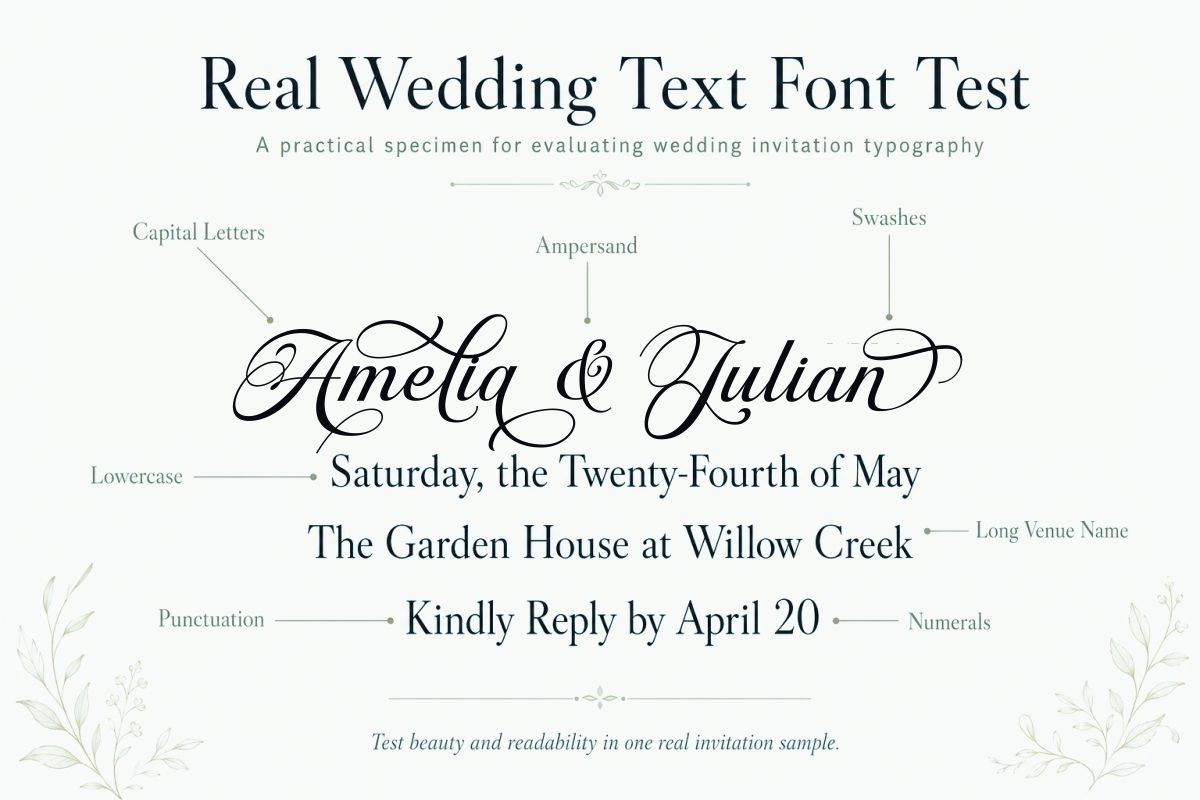
Wedding Invitation Fonts for Elegant, Romantic, and Modern Designs
Wedding invitation fonts do more than make an invitation look beautiful.
They introduce the mood of your celebration before guests see the venue, flowers, outfits, or table setting. A delicate script can suggest an intimate garden wedding. A high-contrast serif can feel formal and editorial. A clean sans serif can make the same information look modern and relaxed.
However, choosing a wedding font is not simply about finding the prettiest typeface.
Your invitation still has a job to do.
It needs to communicate names, dates, locations, dress codes, RSVP details, and other practical information. Every line must remain easy to understand. Even when it is printed at a small size.
I like to think of wedding invitation typography as a small visual system. You need one font to express personality and another to keep the information clear.
This guide will help you choose wedding invitation fonts based on style, readability, pairing, printing, licensing, and how they work across a complete wedding stationery suite.
Why Wedding Invitation Fonts Matter
Your font choice influences how guests interpret the event.
Imagine the same invitation wording presented in three different ways.
A formal calligraphy font with a traditional serif may suggest a black-tie ballroom wedding. A relaxed handwritten font with an organic serif may feel more suitable for an outdoor garden celebration. A geometric sans serif with wide spacing can suggest a contemporary city wedding.
The information has not changed.
The emotional message has.
Good wedding typography usually supports four things:
It introduces the atmosphere
Typography gives guests an early clue about the celebration.
It can communicate elegance, romance, simplicity, playfulness, tradition, or informality before anyone reads the full invitation.
It creates visual hierarchy
Not every line should receive the same level of attention.
The couple’s names may become the main focal point. The wedding date should be easy to locate. Supporting information should remain quieter but still readable.
Font choice, size, weight, spacing, and positioning help separate these levels.
It connects the stationery suite
A wedding rarely uses only one invitation card.
You may also need a save-the-date, RSVP card, details card, menu, seating chart, place cards, welcome sign, and thank-you card.
A consistent typography system helps all of these pieces feel connected.
It makes the design memorable
Guests may not remember the exact name of the font. They will remember the feeling it created.
That feeling is what makes your stationery look considered rather than generic.
Choose Font Roles Before Choosing Font Names
One of the easiest ways to become overwhelmed is to browse hundreds of fonts without deciding what each font needs to do.
Start with roles instead.
A practical wedding invitation typography system can include four roles.
1. The personality font
This is the most expressive typeface in the design.
It may be a calligraphy script, handwritten signature, decorative serif, or unusual display font. It often appears in the couple’s names, a short phrase, or a prominent heading.
This font creates emotion.
It should not carry every detail.
2. The headline font
The headline font supports important information such as the wedding date, venue name, section titles, or location.
It is usually more structured than the personality font. A refined serif or clean sans serif works well here.
3. The reading font
This font handles the main invitation wording and supporting details.
Its job is clarity.
Choose a typeface with readable letterforms, comfortable spacing, and enough weight to reproduce clearly in print.
4. The utility font
Small information may need an even simpler treatment.
Think of RSVP deadlines, website addresses, accommodation notes, menu labels, table numbers, and directions.
In a simple invitation, the reading and utility roles can use the same font.
You do not need four different typefaces. You need four clearly defined functions.
In most cases, two fonts are enough to cover them.
10 Wedding Invitation Font Styles to Explore
The best wedding invitation fonts are not limited to traditional calligraphy. Different celebrations need different typographic voices.
Here are ten useful style directions to consider.
1. Formal Calligraphy Fonts
Formal calligraphy uses flowing strokes, pronounced contrast, and carefully constructed letterforms.